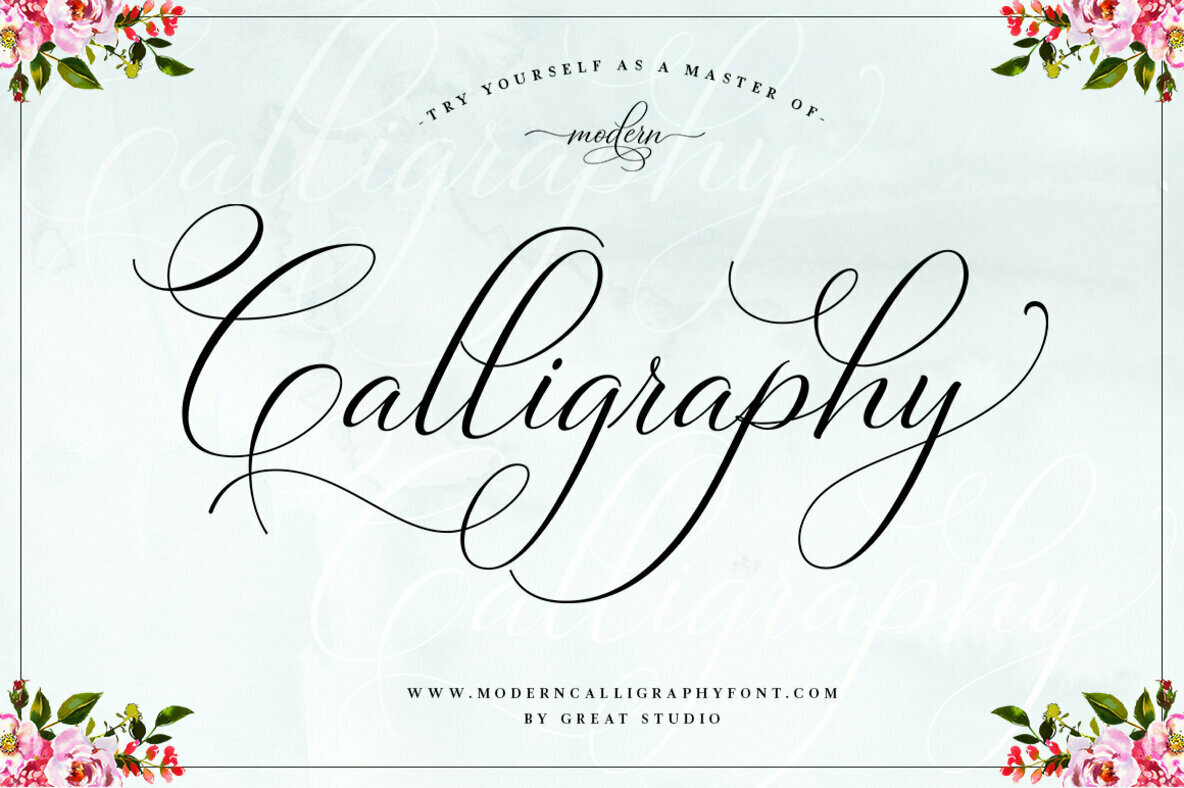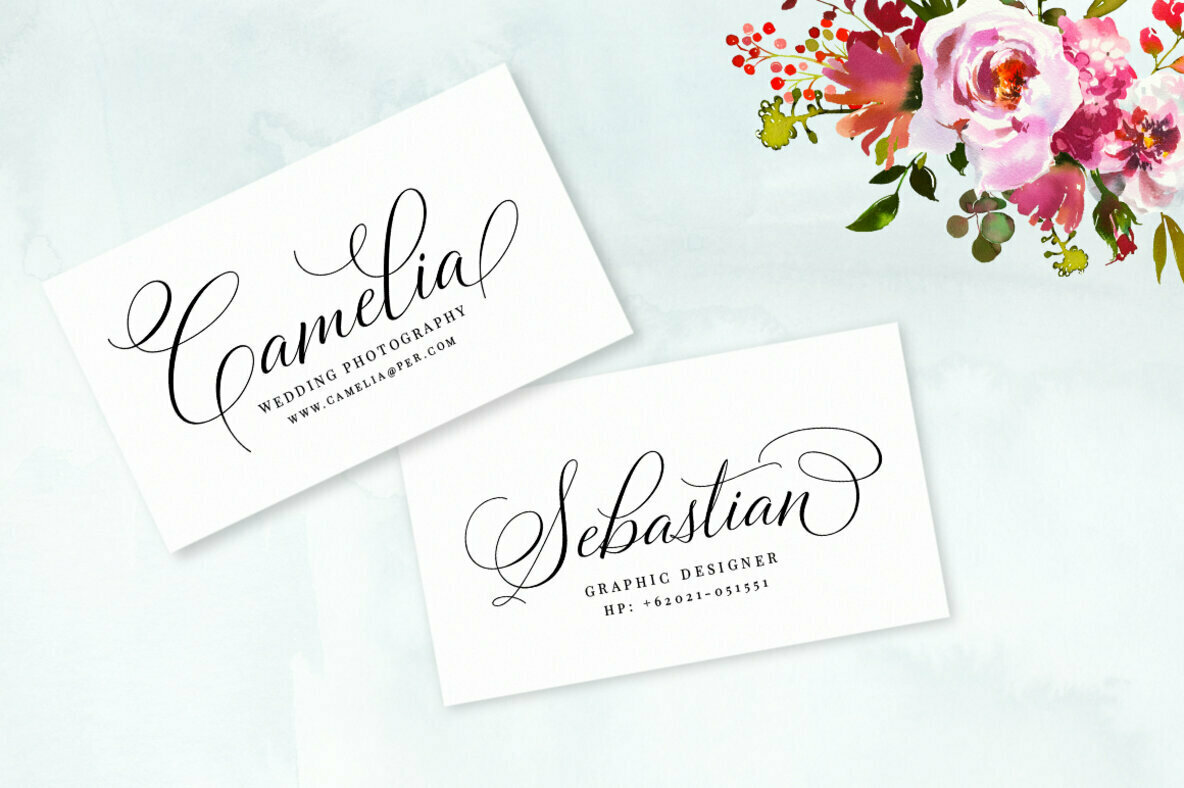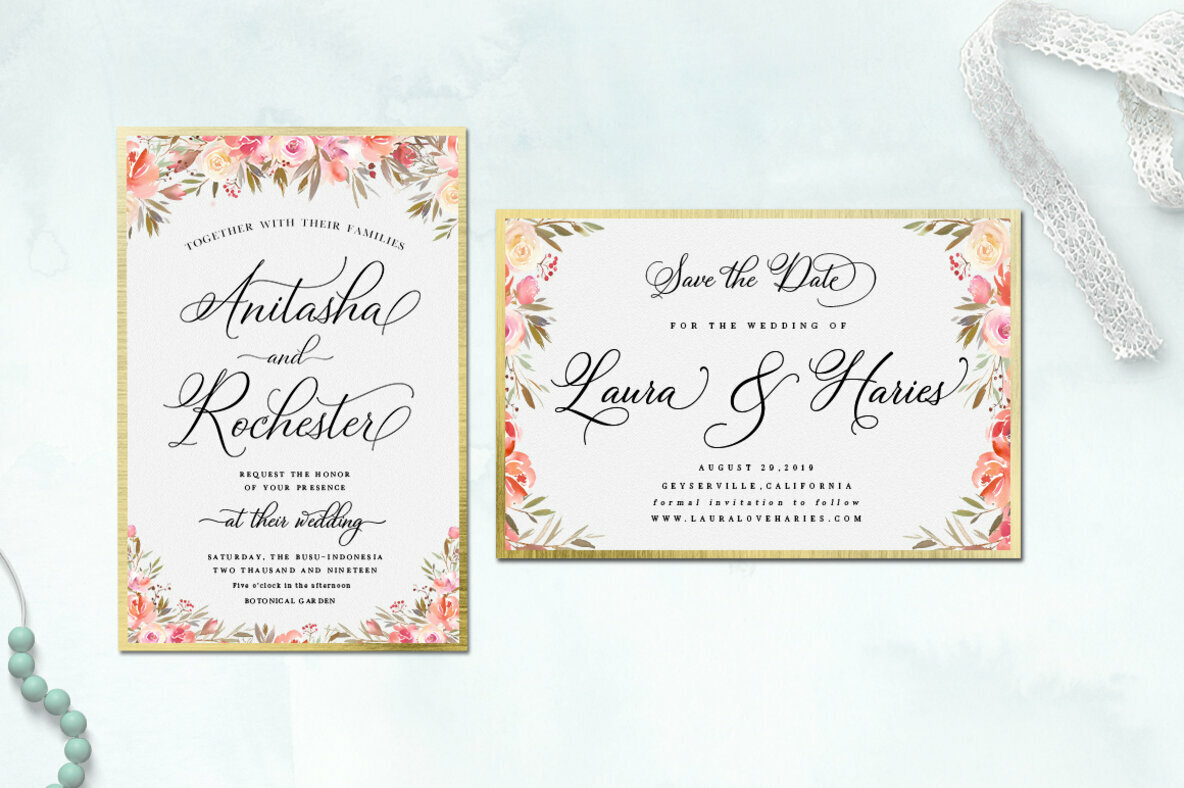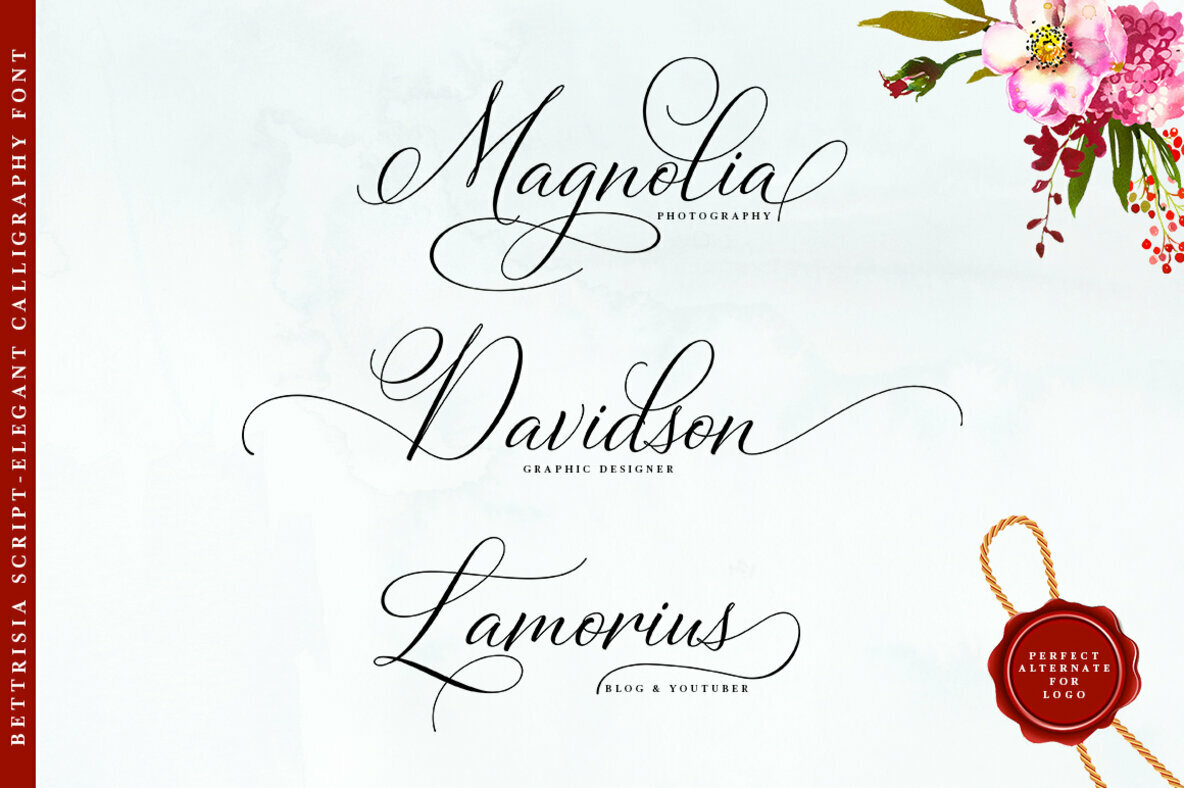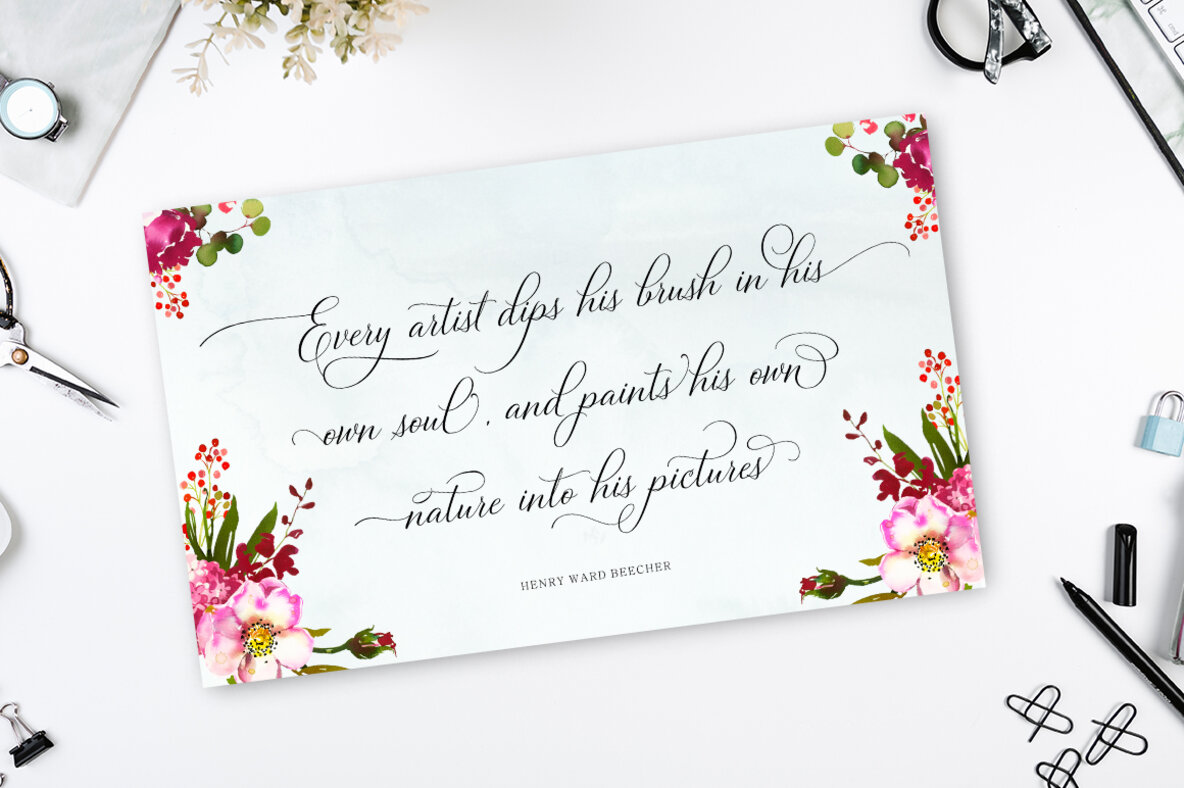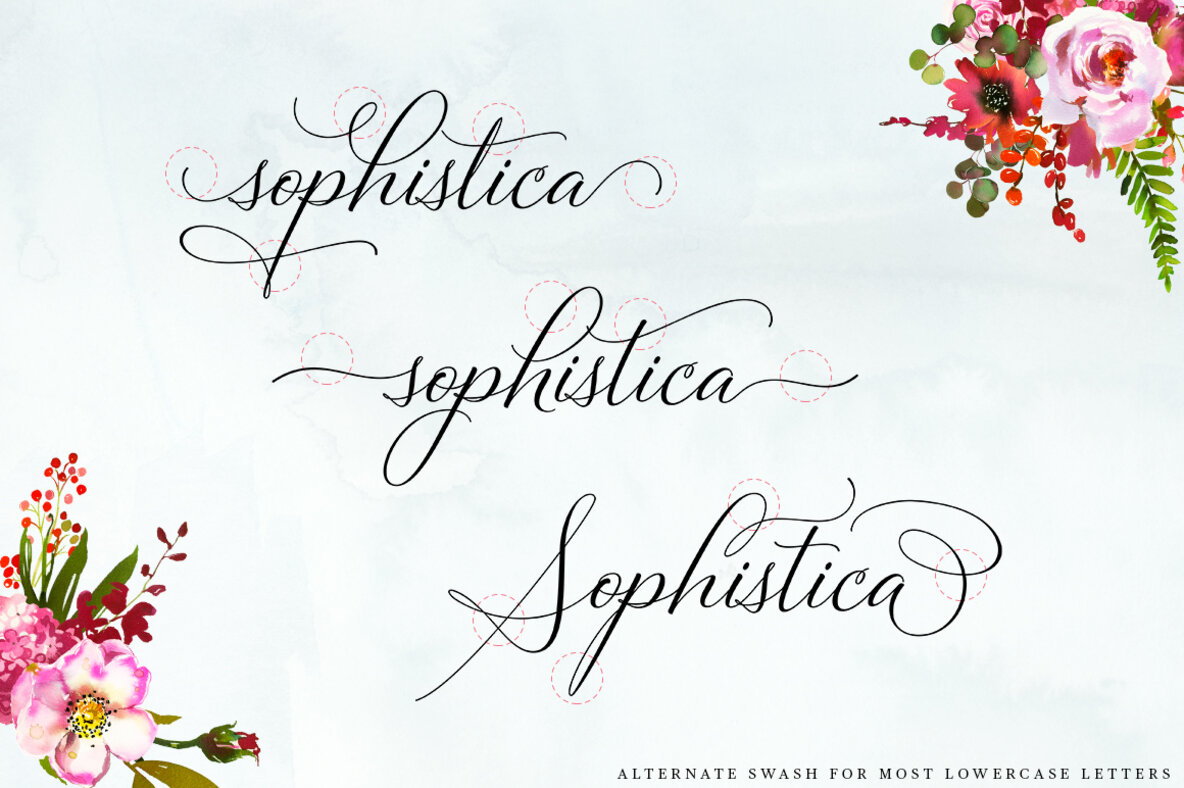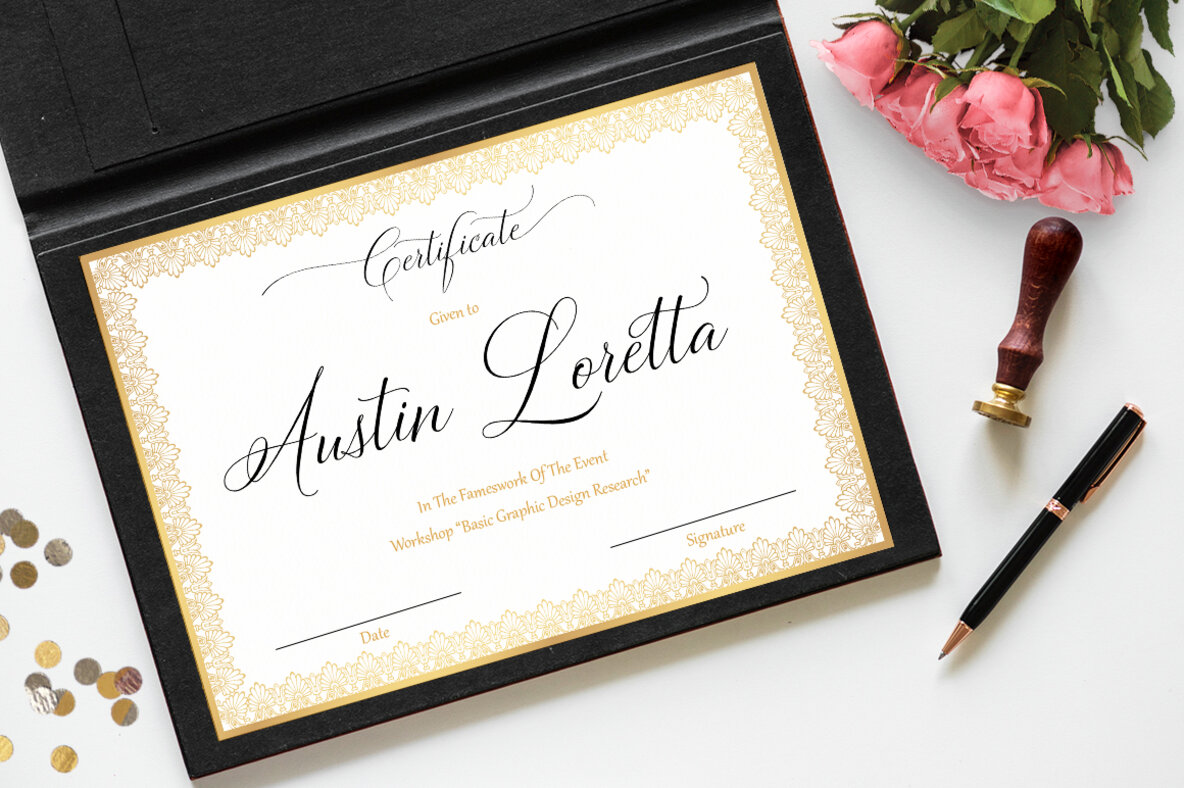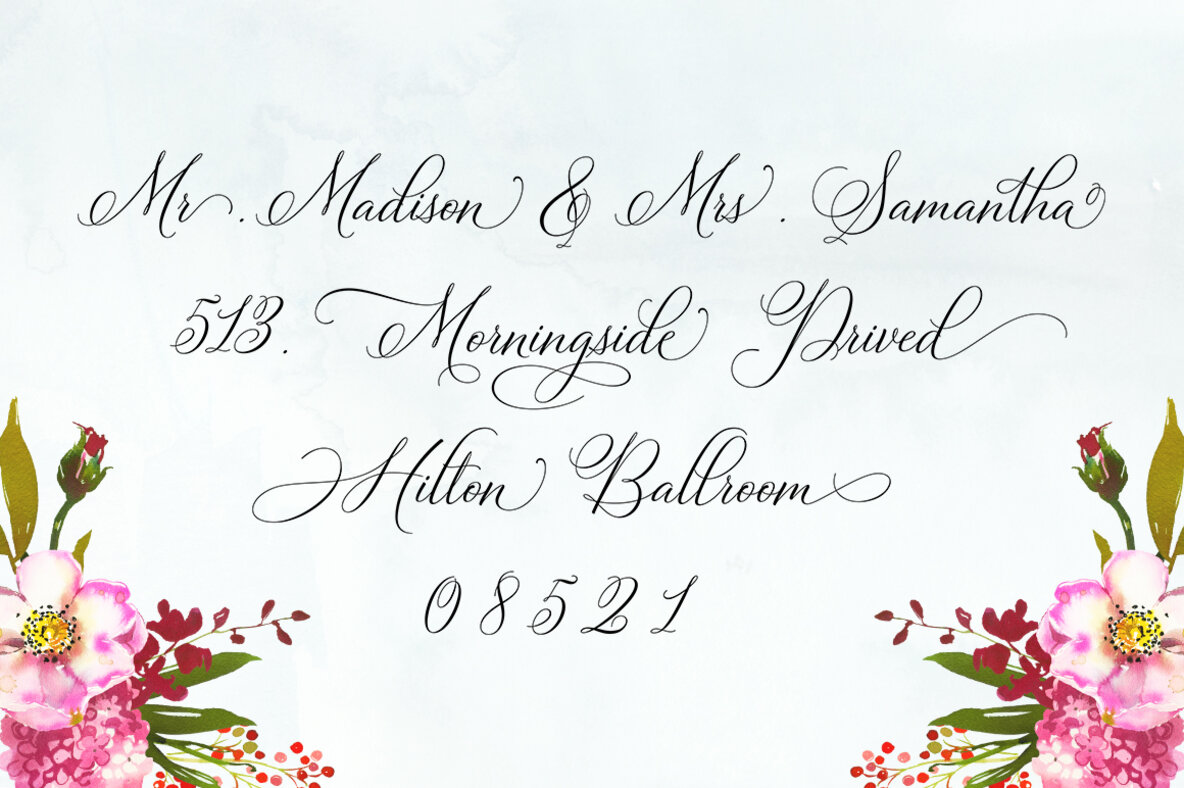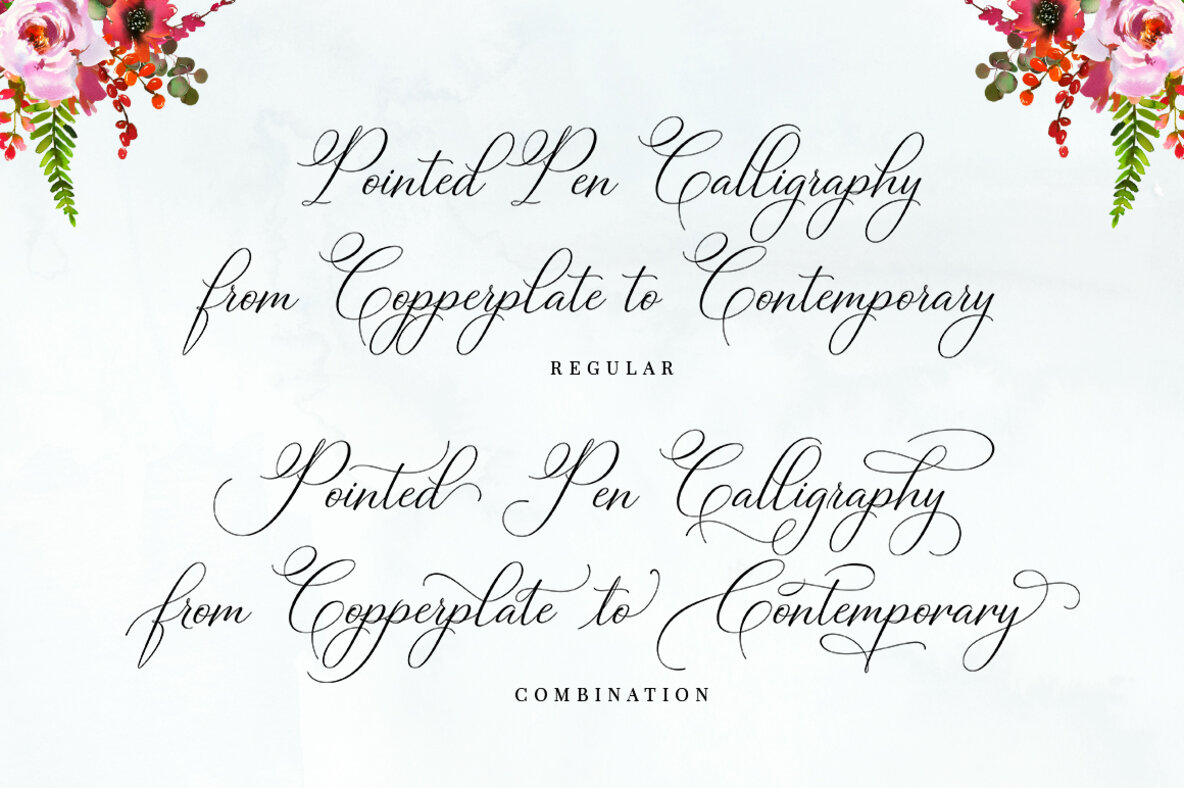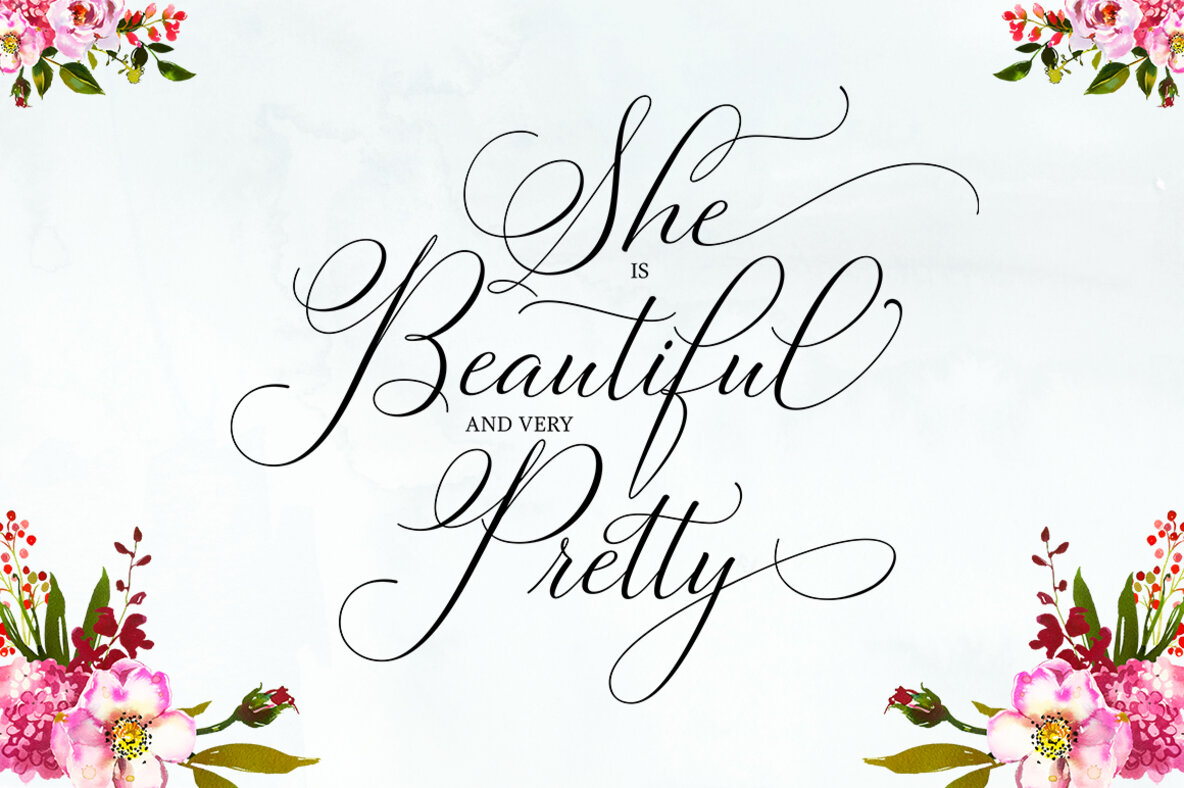
Bettrisia Script Font
Bettrisia Script is a modern interpretation of classic calligraphy, designed with intricate detail to evoke an air of stylish sophistication. This script font seamlessly marries the timeless allure of copperplate with a contemporary aesthetic, making it an ideal choice for various applications from wedding invitations to brand logos. Its fluid, clean lines and diverse letter connections ensure readability, while offering a glamorous yet simple charm. With over 680 glyphs and 487 alternative characters, Bettrisia Script supports a wide range of languages, making it versatile for international projects. The font's OpenType features, including numerous stylistic alternates and elegant ligatures, are accessible through programs such as Adobe Illustrator, InDesign, Photoshop, CorelDRAW, and Microsoft Word. PUA encoding further enhances accessibility, allowing designers to fully utilize its creative potential.Bettrisia Script: Modern Elegance in Calligraphy